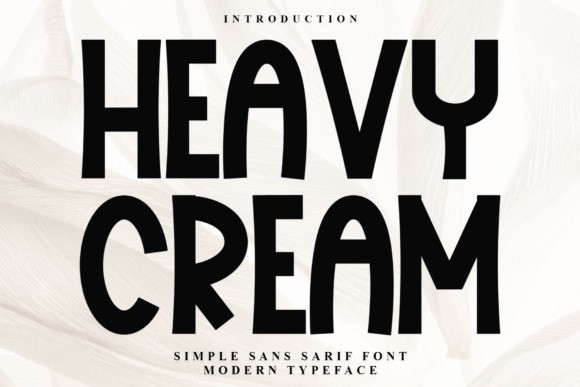
Heavy Cream Font
Heavy Cream Font is a bold display font with thick, strong letters, perfect for making a big impact. It’s easy to read and adds a fun, stylish touch to any design.